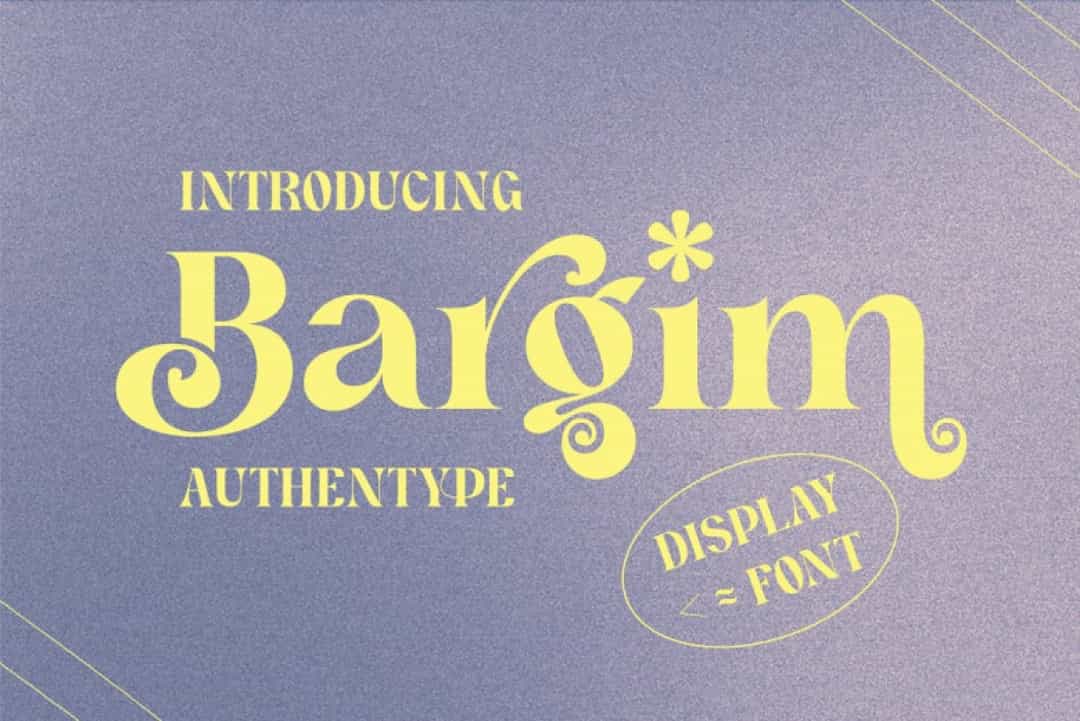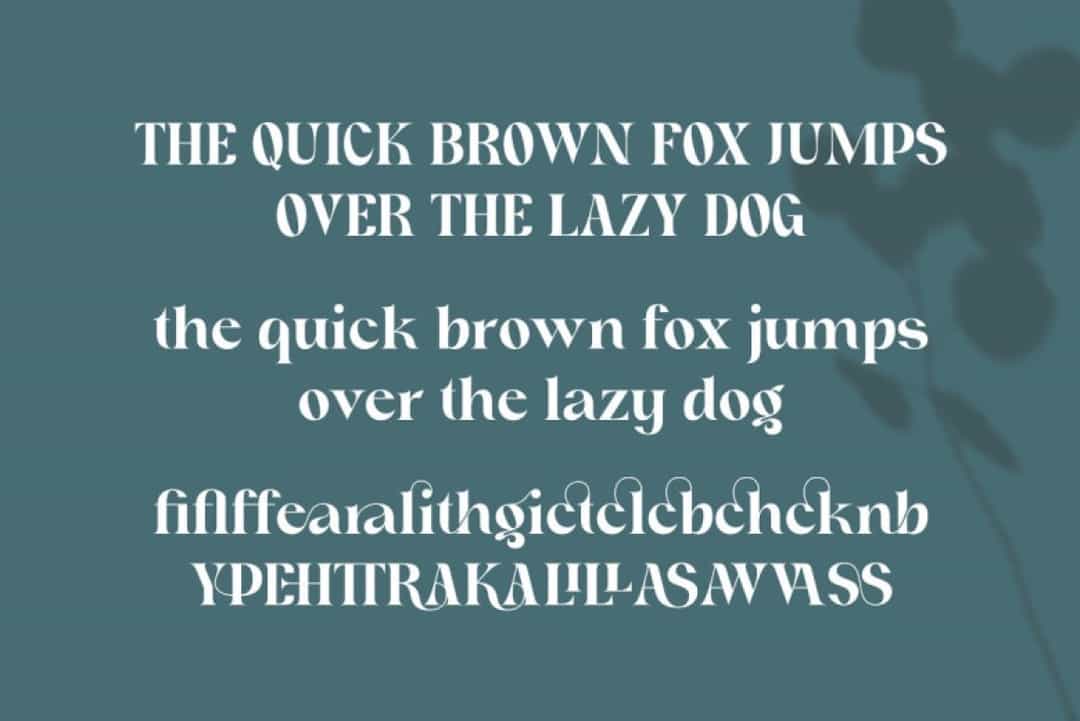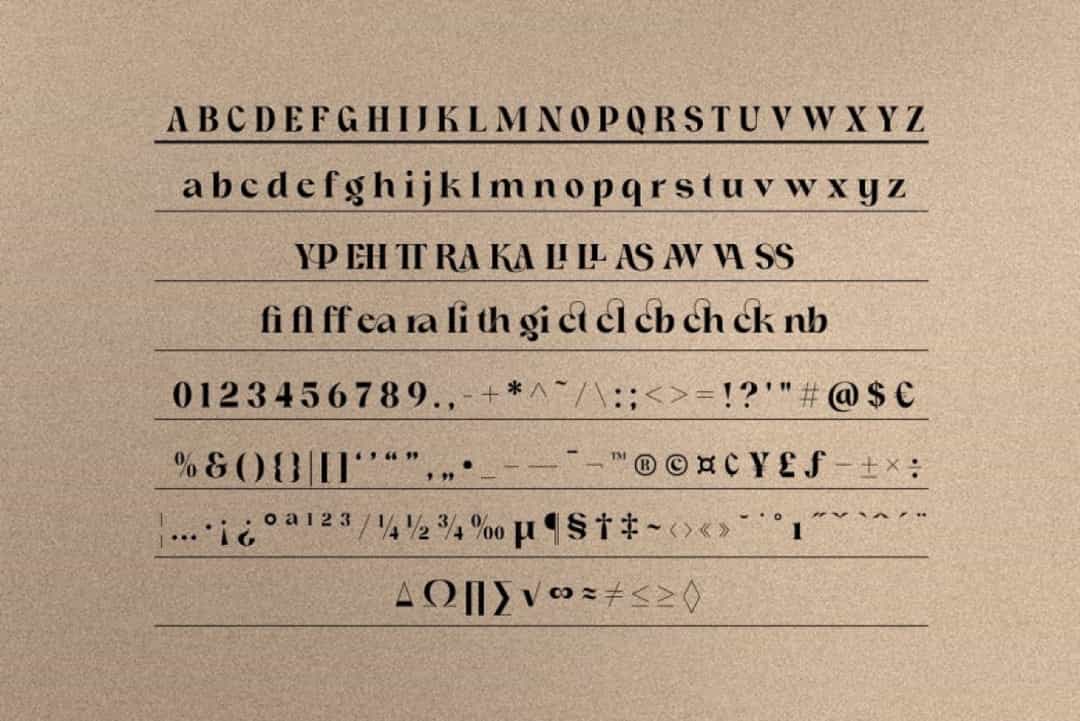
Bargim Contemporary display font has been carefully designed to impress with its beauty and graceful curves, as well as featuring an attractive ligature design to make its appearance more stylish.